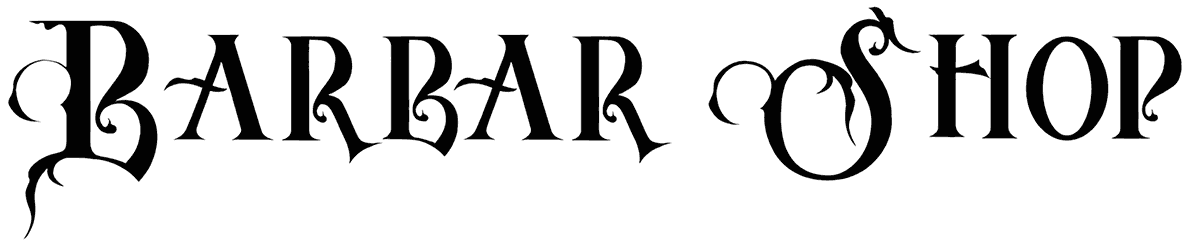
Romantiques Font
The decorative elements in the Romantiques font make it look like head inscriptions in old museums and palaces. This retro font with its classic and vintage edges, even in the absence of lowercase letters, can arouse the admiration of any viewer.
Designed by: Dieter Steffmann